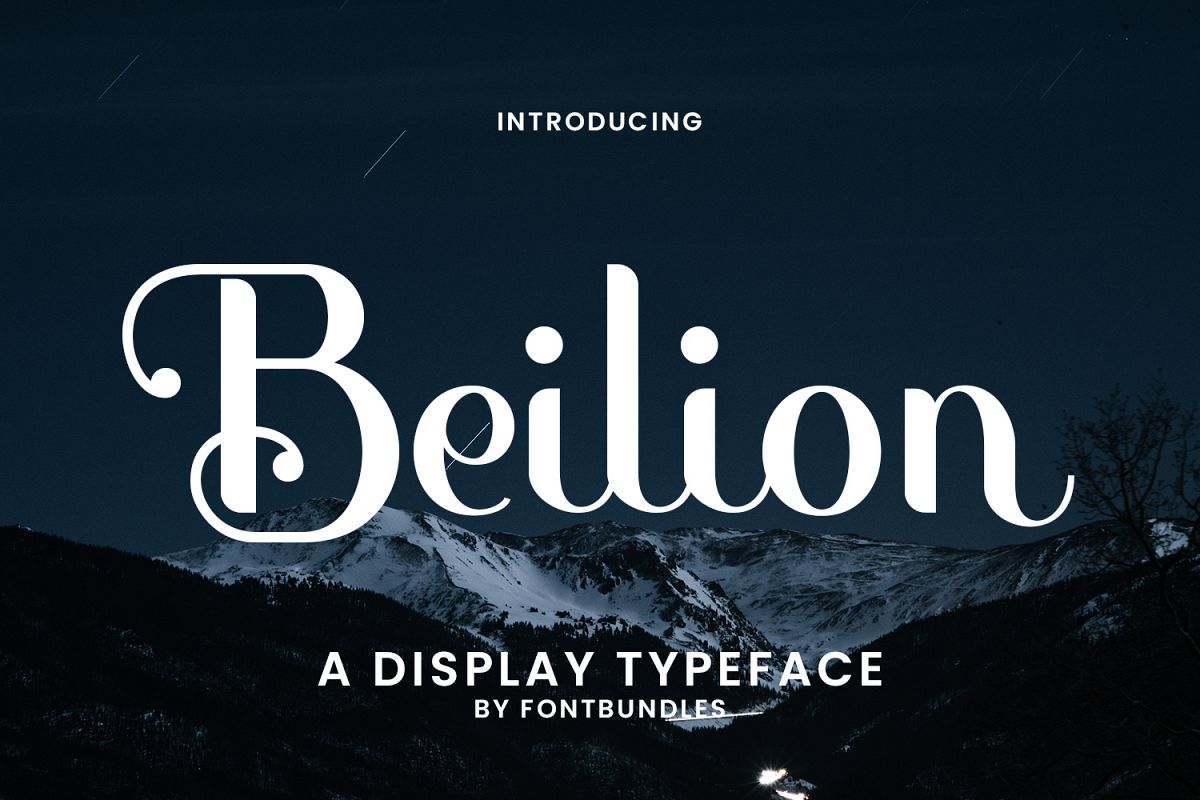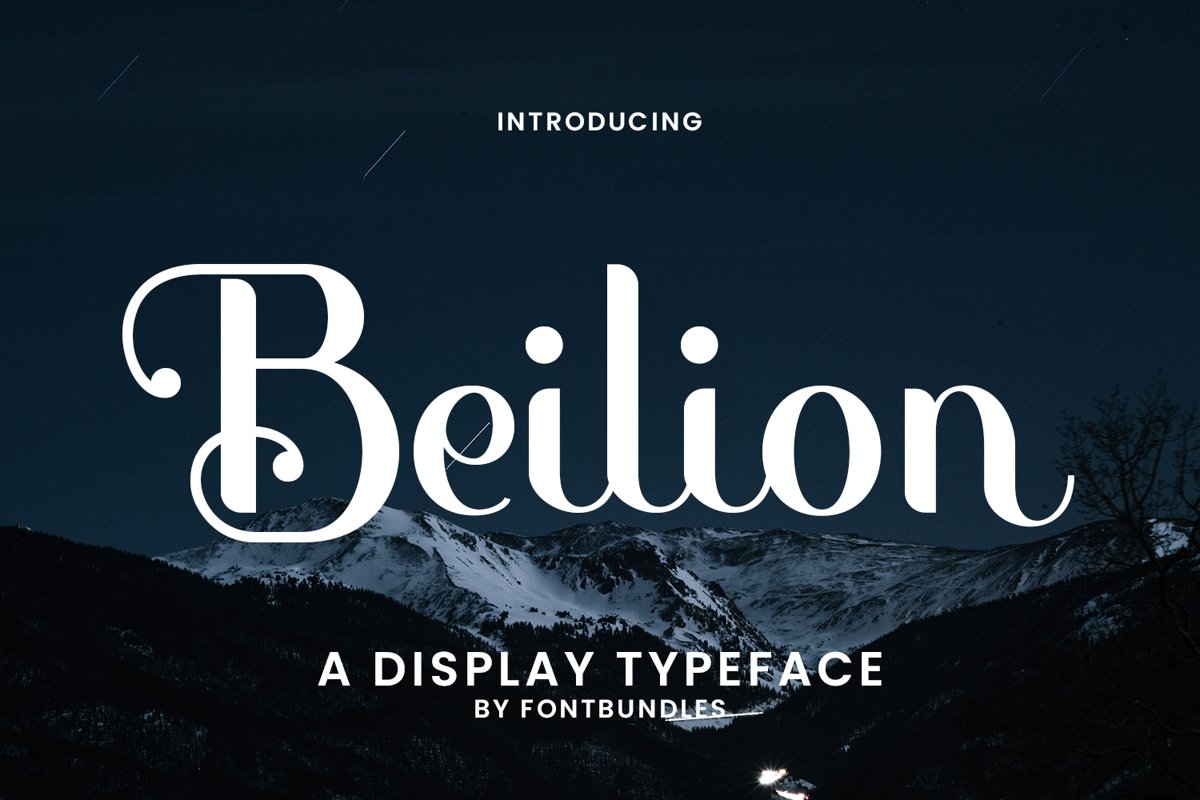
Beilion is a display typeface. Perfect for logo, name card, badges, business card, quotes, branding, packaging, merchandise, header tittle, and many more.